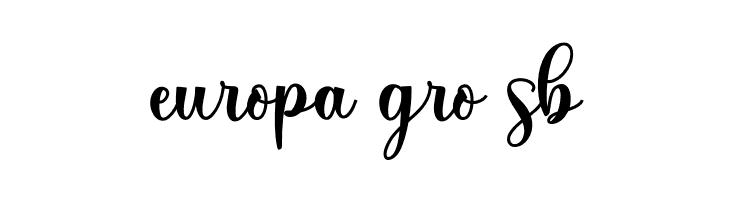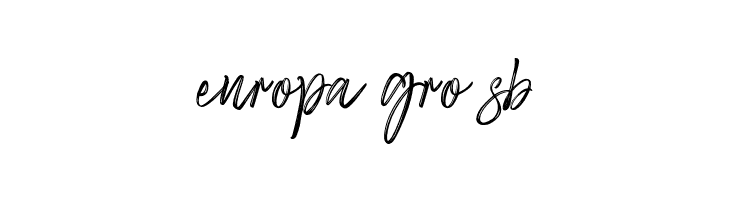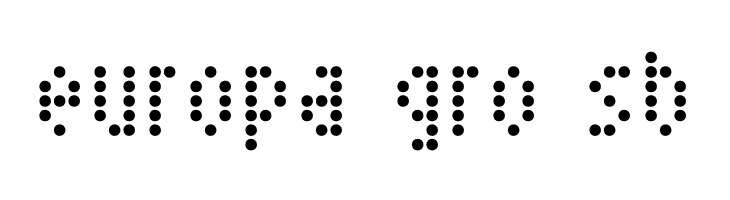
An elegant script font with flowing, interconnected letters and classic calligraphic style.
An elegant script font with flowing, interconnected letters and a classic appearance.
A playful, whimsical script font with flowing, cursive letters and charming flourishes.
A playful and whimsical handwritten script font with dynamic curves.
A dynamic and elegant handwritten cursive font.
A playful, dotted font with a modern and creative style.